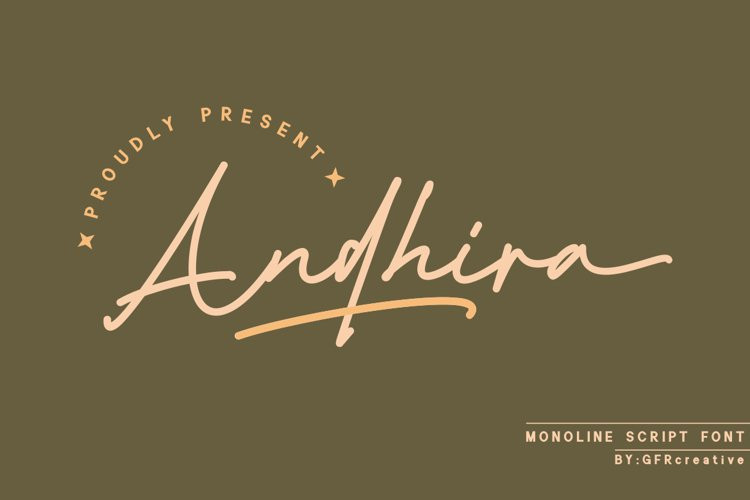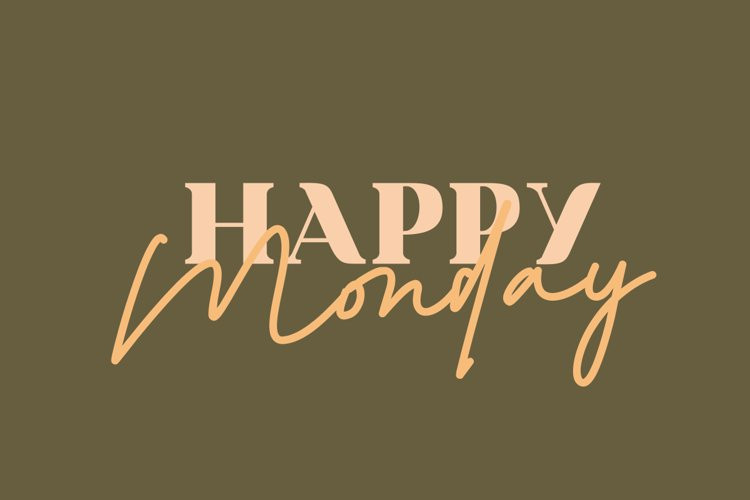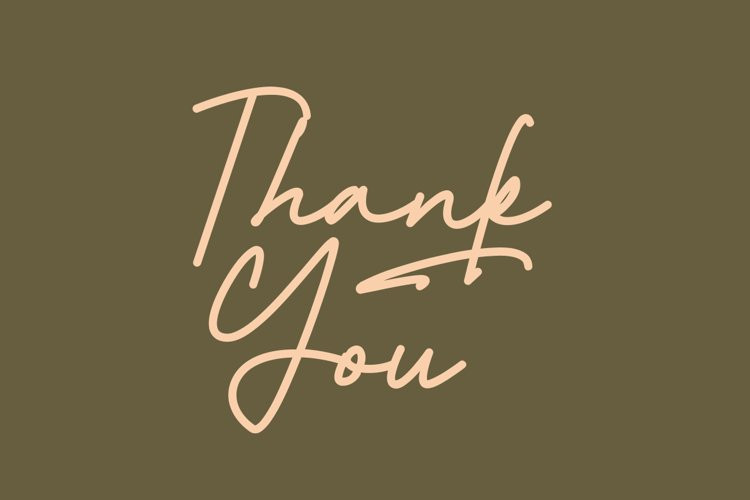
Andhira Font
Andhira FontAndhira is a monoline script font that comes with style and character.
A great font to use in many ways for your latest project. Perfect for logos & branding, photography, invitations, watermarks, advertising, product design, stationery, wedding designs, labels, product packaging, special events, or anything else that requires script content.